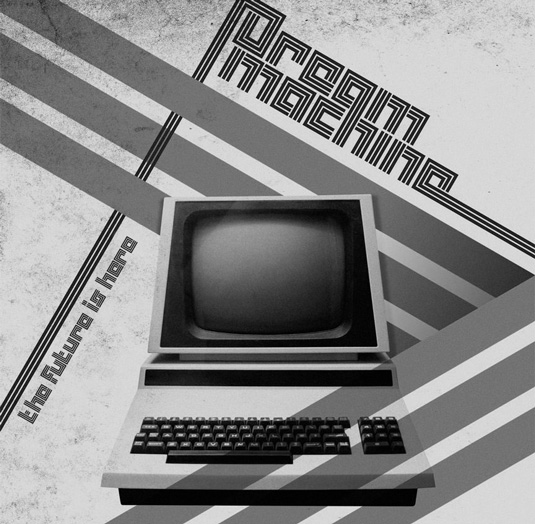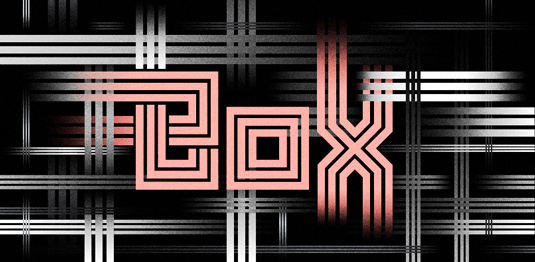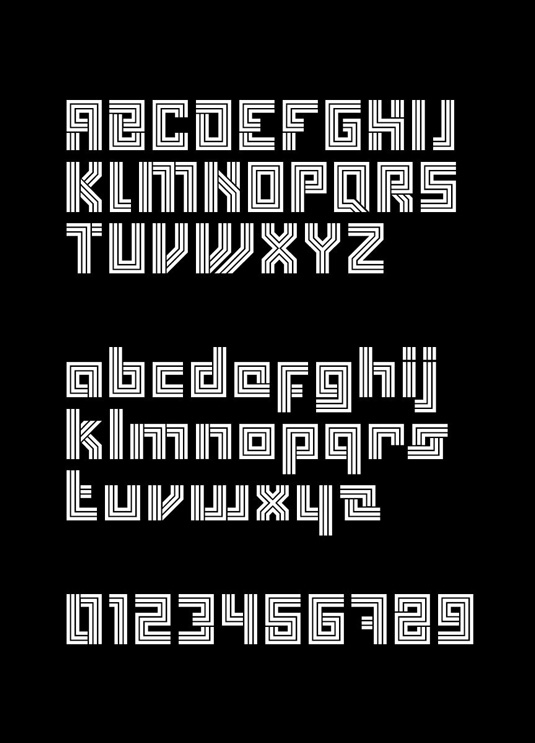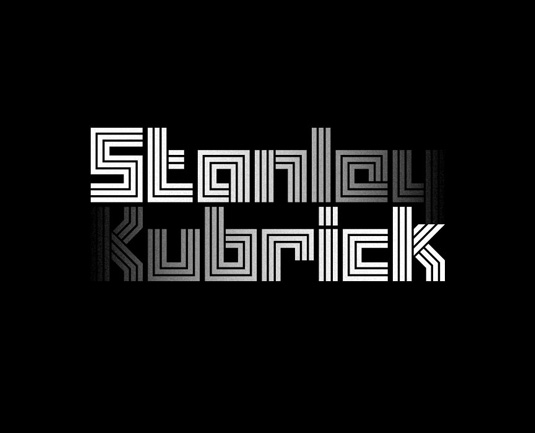
Font of the day: Box
Box by Superfried
This eye-catching type design Box was created by the team at London-based graphic design studio Superfried. "Box is an experimental, retro display typeface," comments Superfried's Mark Richardson.
"Initially inspired by the parallel paths of our own logo, Box then took a detour leading to glyphs that are predominantly square in construction. The result is a bold, distinct look with high impact."